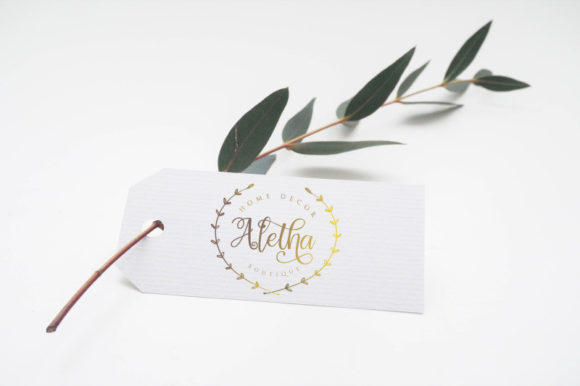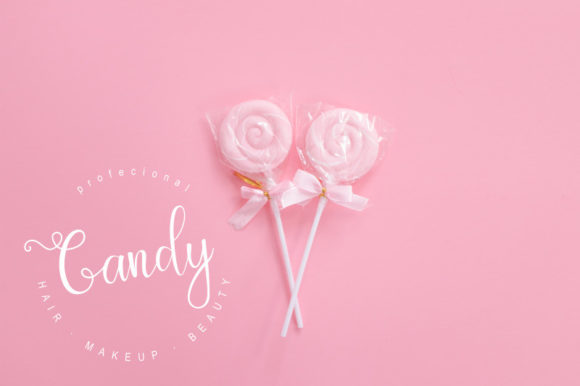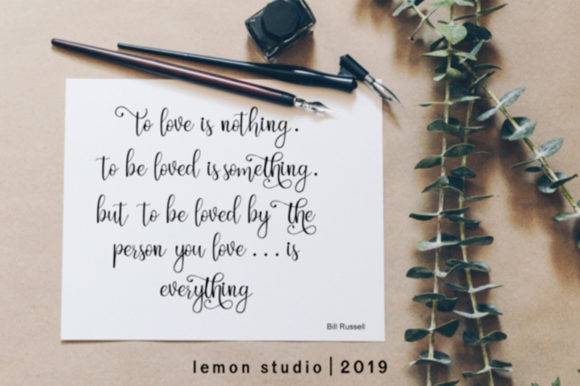
Chathaleya Font
About Chathaleya Font
Chathaleya is a highly detailed and timeless handwritten font. It is the best choice for creating eye catching logos, branding and quotes. Every letter has a unique and beautiful touch, which will make your design come alive!